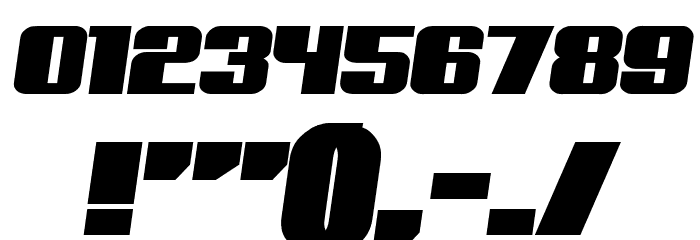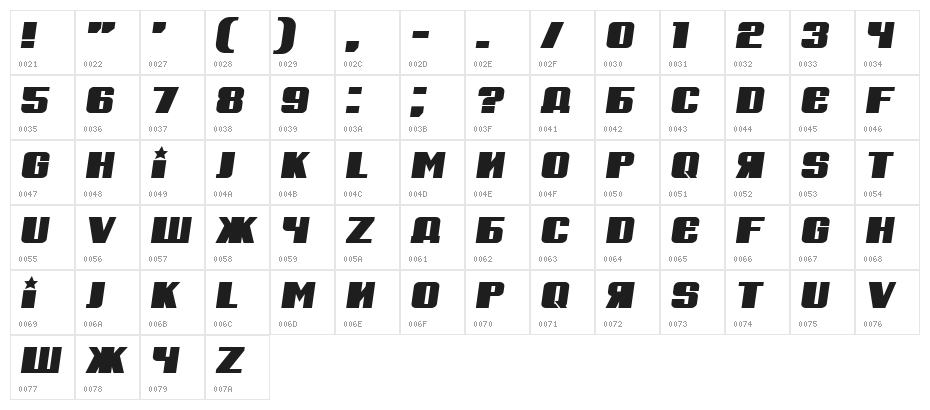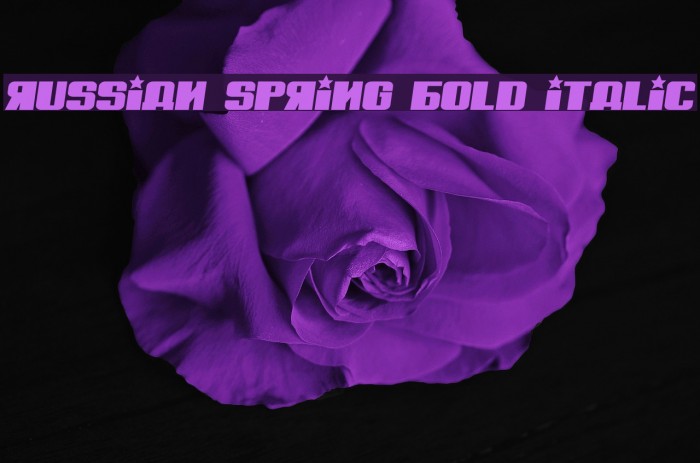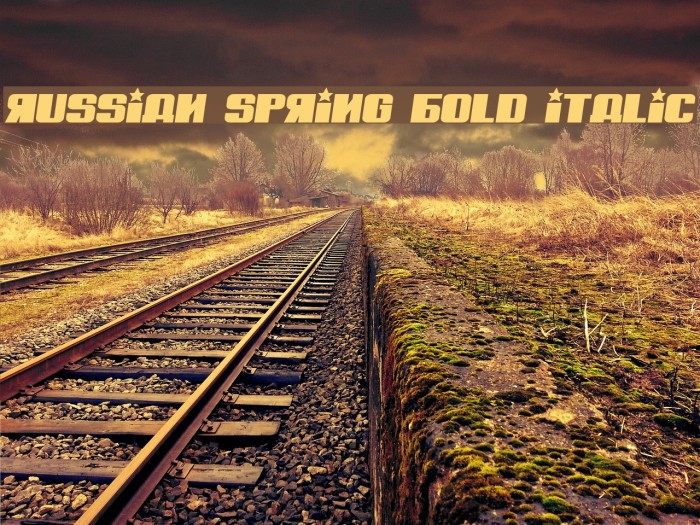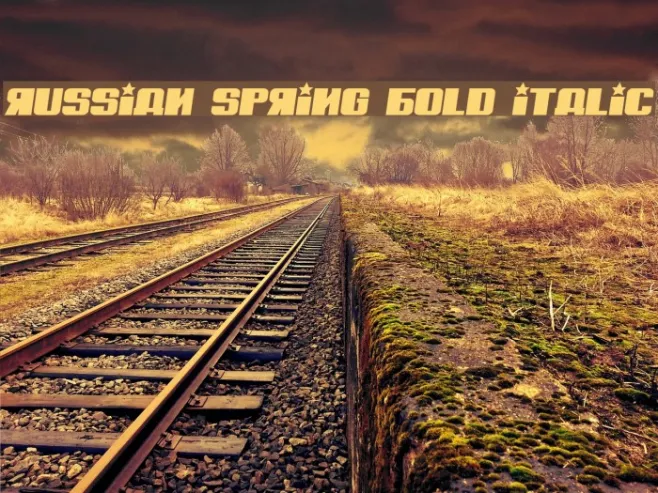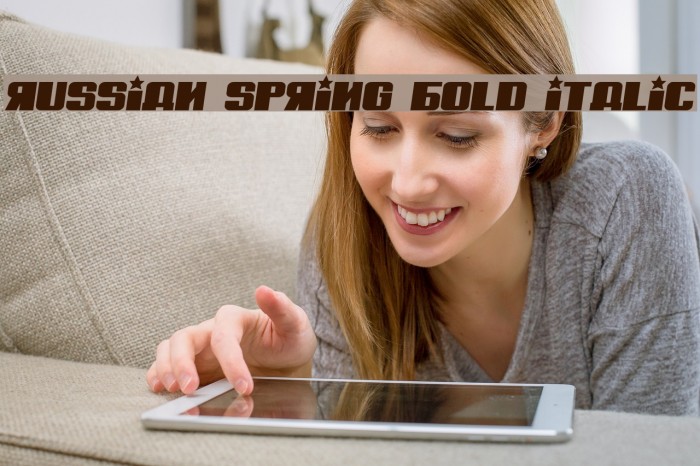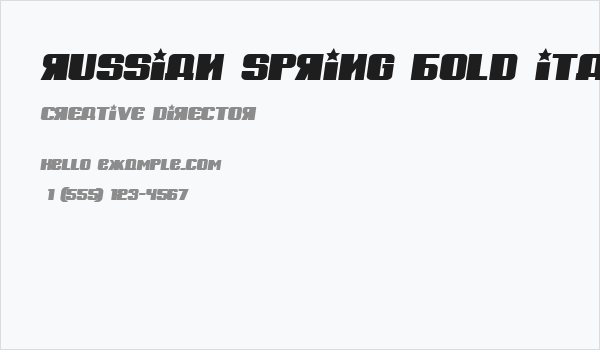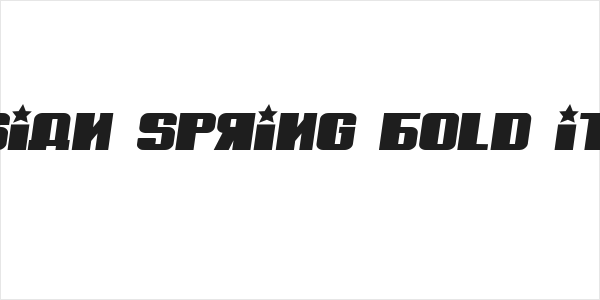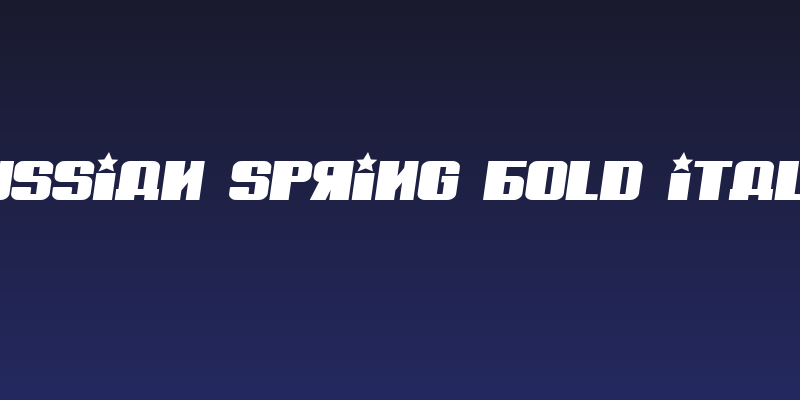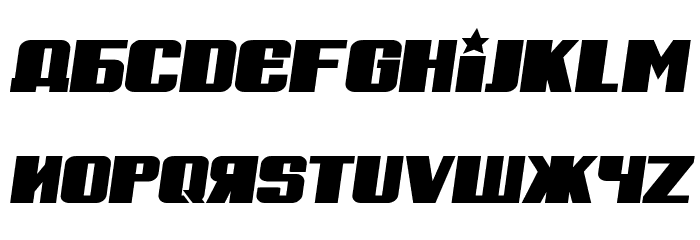
Russian Spring Bold Italic Font
Russian Spring Bold Italic Description
This bold and italic font features a strong, impactful design with a distinct geometric style. The characters are wide and have a solid presence, making them ideal for attention-grabbing headlines. The uppercase letters are particularly striking, with some incorporating unique elements like stars, adding a decorative touch. The numbers and special characters maintain the same boldness, ensuring consistency across all text. This font's design is reminiscent of Soviet-era aesthetics, with a modern twist that makes it suitable for contemporary use.
| Proposed Projects | This font is perfect for posters, logos, branding materials, and any project requiring a strong, bold statement. |